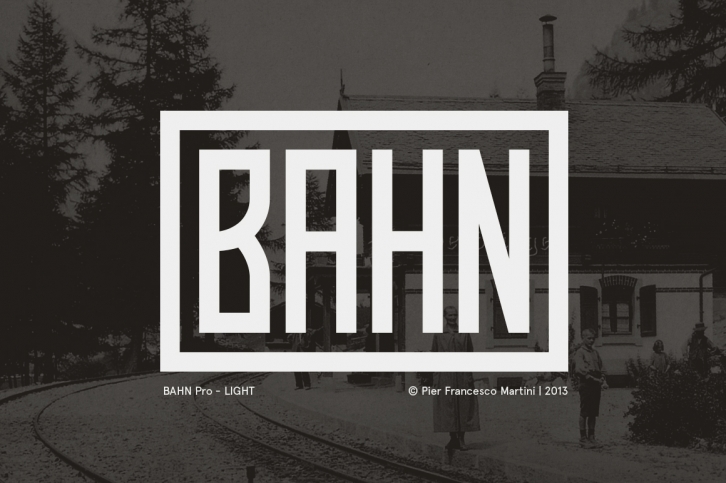
BAHN Pro Light is a trendy and unique font with an authentic style. It was designed by Martini Type Designer and it's a great choice for creative people who need such a font. It was released on March 8, 2016 and the file size is 18.69 MB. BAHN Pro Light will add an organic vibe to any design idea!